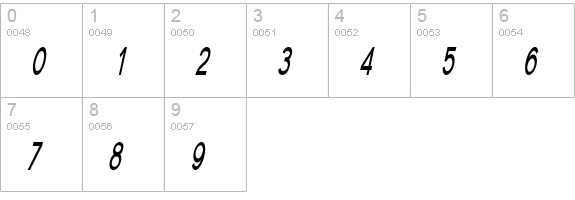
Florencesans SC Comp Bold Italic is a strong, high-contrast, italic variant in the Florencesans typeface family \xE2\x80\x94 well suited to headlines, attention-grabbing titles, and strong calls-to-action.
Florencesans SC Comp Bold Italic is a striking and modern typeface that exudes elegance and sophistication. Its bold and italic design adds a touch of flair to any project, making it perfect for headlines, logos, and other prominent design elements. The sleek and contemporary look of this font makes it a versatile choice for both print and digital applications. What sets Florencesans SC Comp Bold Italic apart is not just its stylish appearance, but also its accessibility. This font is freely available to download at FontsMarket.com, allowing designers and creatives to easily incorporate it into their projects without any cost. With its clean lines and distinctive style, Florencesans SC Comp Bold Italic is sure to make a bold statement and elevate the visual impact of any design.